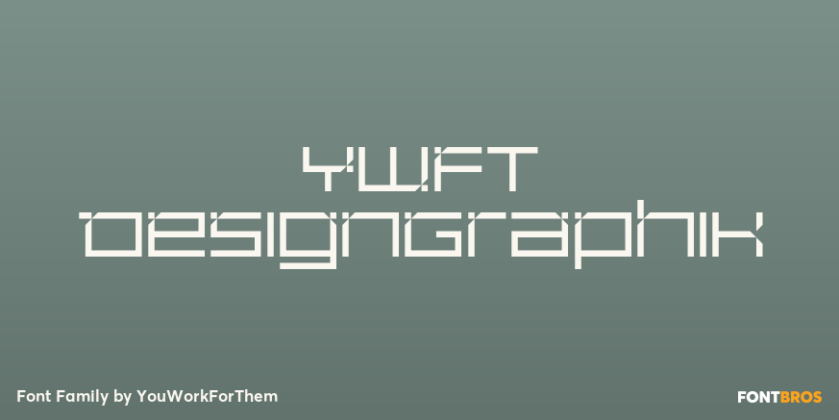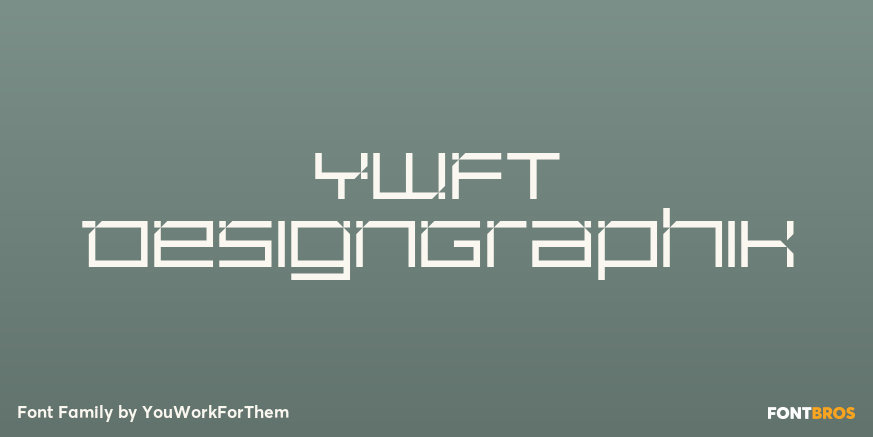
YWFT DesignGraphik
About YWFT DesignGraphik
YWFT DesignGraphik is a custom typeface that was created for the fifth version of Michael Paul Young\’s long-running online art project of the same name. Accordingly, the font has strong family ties with (and carries a strong resemblance to) MPY\’s work…